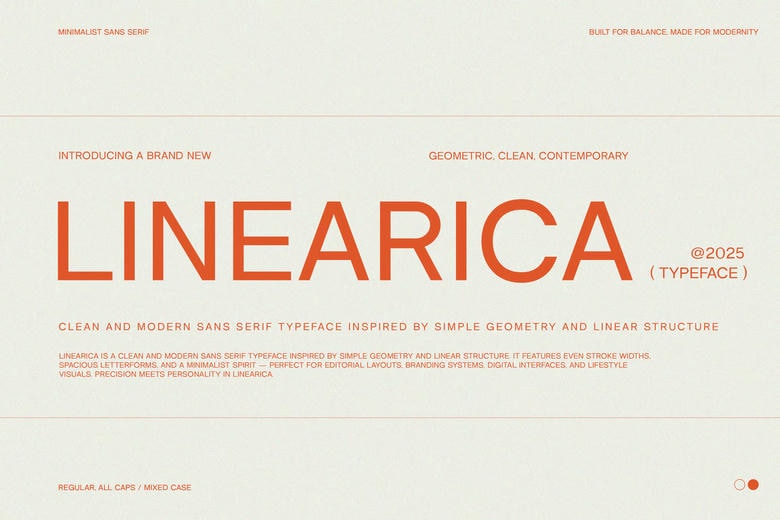
Linearica Regular Font
Linearica Regular is a sleek, modern sans serif font featuring a linear, monoline style. With its clean curves and elegant simplicity, it’s perfect for logos, minimalist branding, posters, and editorial titles. This uppercase typeface brings a stylish, contemporary edge to your design work.